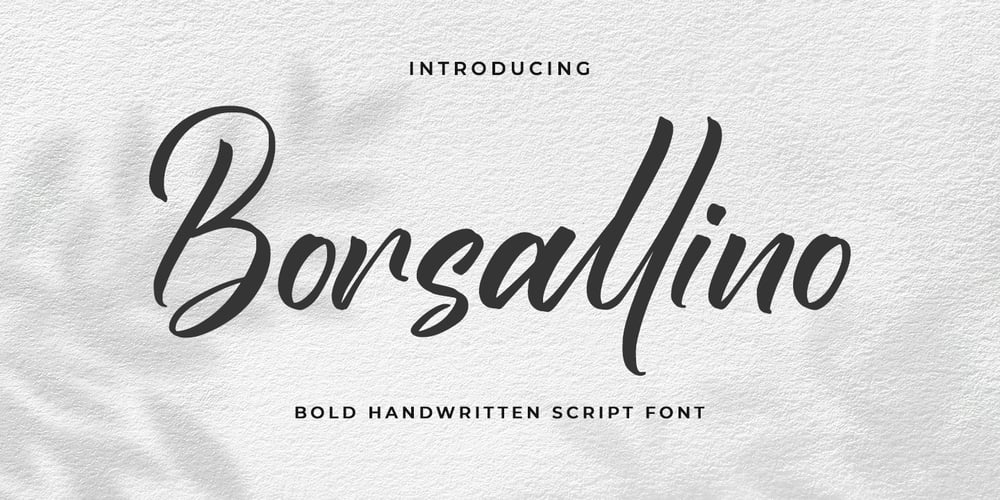
Borsallino Font Family was designed by Novia Himatunnisa and published by Nissa Nana. Borsallino contains 1 styles and family package options. Borsallino is a beautiful and delicate handwritten font with a unique feel and a stunning impact. It will add a luxury spark to any design project that you wish to create!